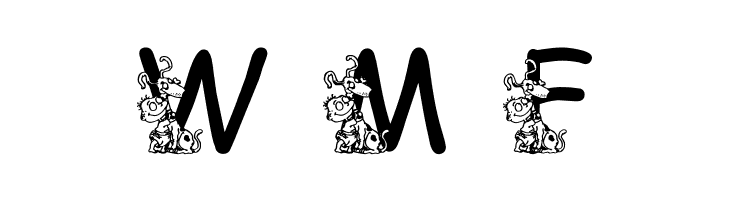
( Fonts by DumadiStyle )
A bold, playful font with rounded, exaggerated forms and a whimsical style.
( Fonts by Rodrigo German - RASDESIGN )
A bold, playful font with a unique striped pattern and rounded characters.
( Fonts by Lois )
A playful, hand-drawn font with bold, irregular characters and unique embellishments.
( Fonts by Pinisiart )
A bold, playful font with a hand-carved, rustic appearance.